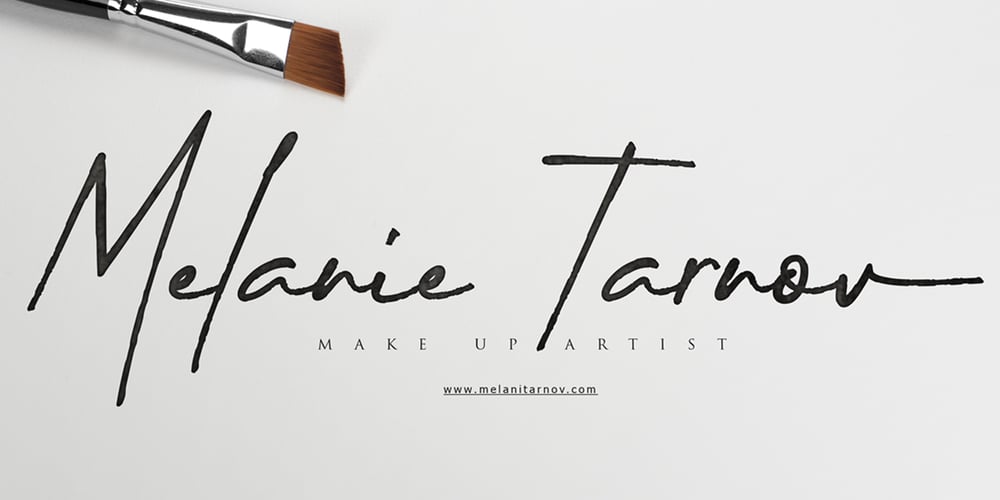
Landscape
Landscape font
Landscape Font Family was designed by Rochadi Sudarma and published by Rochart. Landscape contains 1 styles and family package options. Landscape is a modern hand writing script. It’s great for logotype, Branding Design, Logo Design, Digital Lettering Arts, T-Shirt/Apparel, Poster, Magazine, Signs, Advertising Design, wedding invitation and any hand lettered needs.